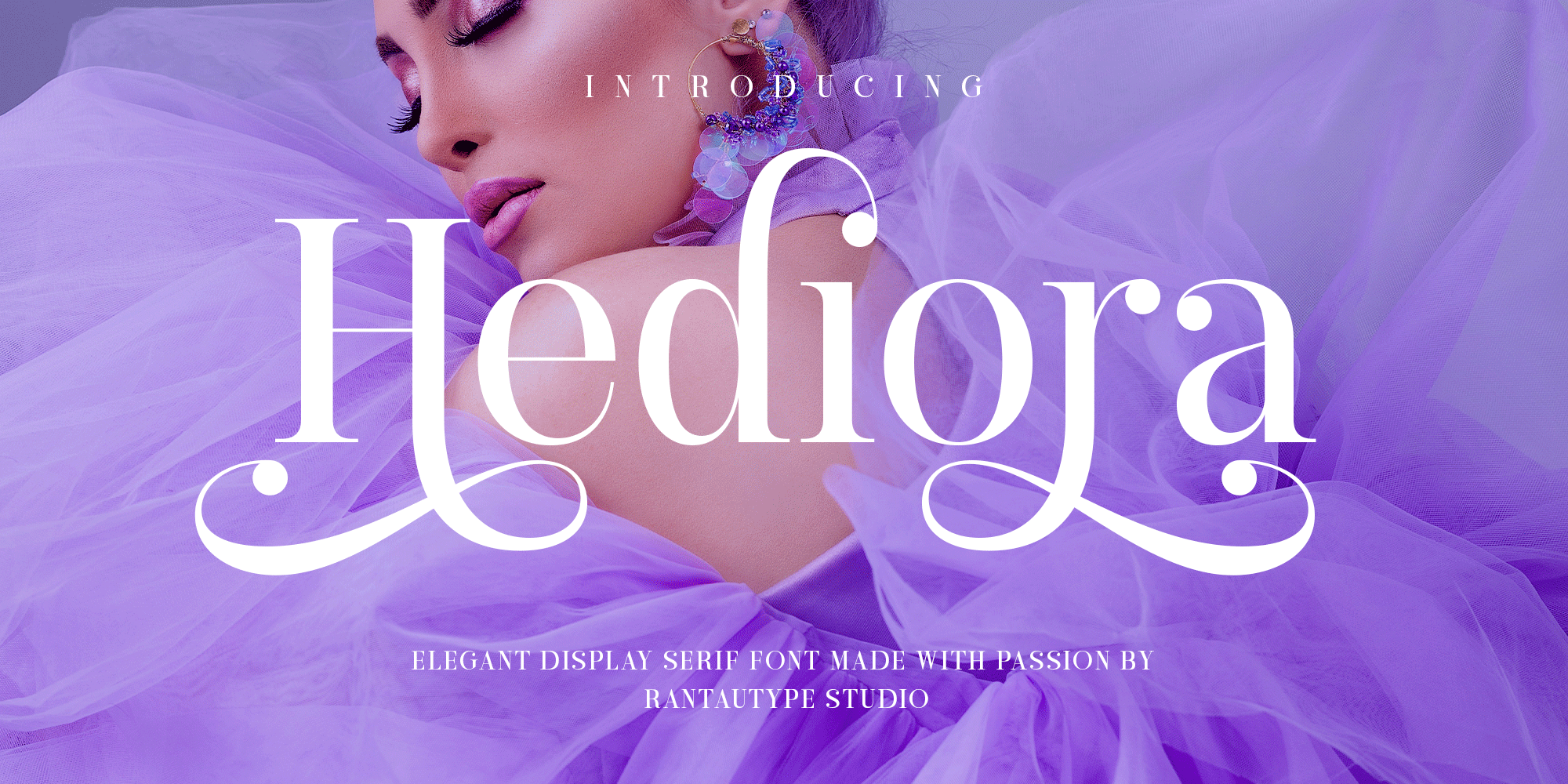
Hediora Font is perfect for luxury fashion branding, elegant beauty product packaging, sophisticated jewelry labels, high-end cosmetic advertising, premium lifestyle magazines, upscale boutique signage, refined wedding stationery, and artistic projects that require graceful, feminine typography with contemporary elegance.
This Hediora Font is exciting because it masterfully balances delicate refinement with modern sophistication, featuring flowing letterforms with subtle curves and elegant proportions that create a sense of luxury and femininity while maintaining excellent readability across various design applications and media formats.
The Hediora Font family includes refined weights with graceful character styling, complete uppercase and lowercase alphabets, elegant numerals, sophisticated punctuation, and stylistic alternates that provide comprehensive typography solutions for luxury branding and high-end design projects requiring distinctive feminine appeal.
Perfect for creating premium brand identities and sophisticated visual communications, Hediora Font Free Download delivers the elegant typography that transforms ordinary text into luxurious brand statements. This distinctive typeface captures the essence of modern femininity and refined taste, making it essential for designers working on upscale projects that demand graceful sophistication, premium appeal, and contemporary elegance with timeless charm.